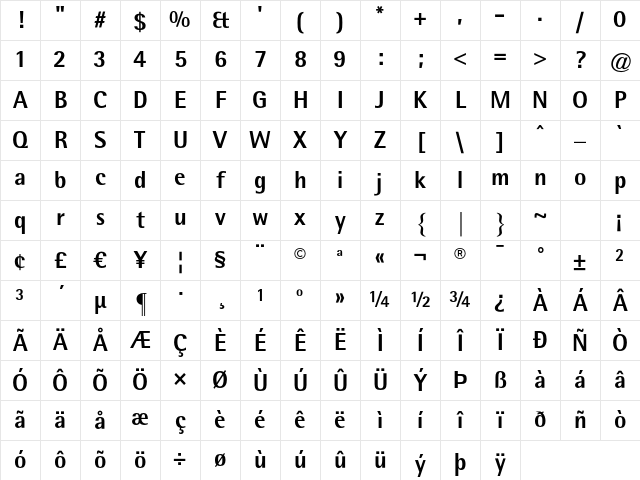
Complete AgfaRotisSemisansExtraBold Regular glyph index. Displaying only characters natively supported by AgfaRotisSemisansExtraBold Regular font.
AgfaRotisSemisansExtraBold is a composed and adaptable typeface that performs quietly and consistently across a wide range of design contexts. Its bold stroke weight gives it real presence on the page.